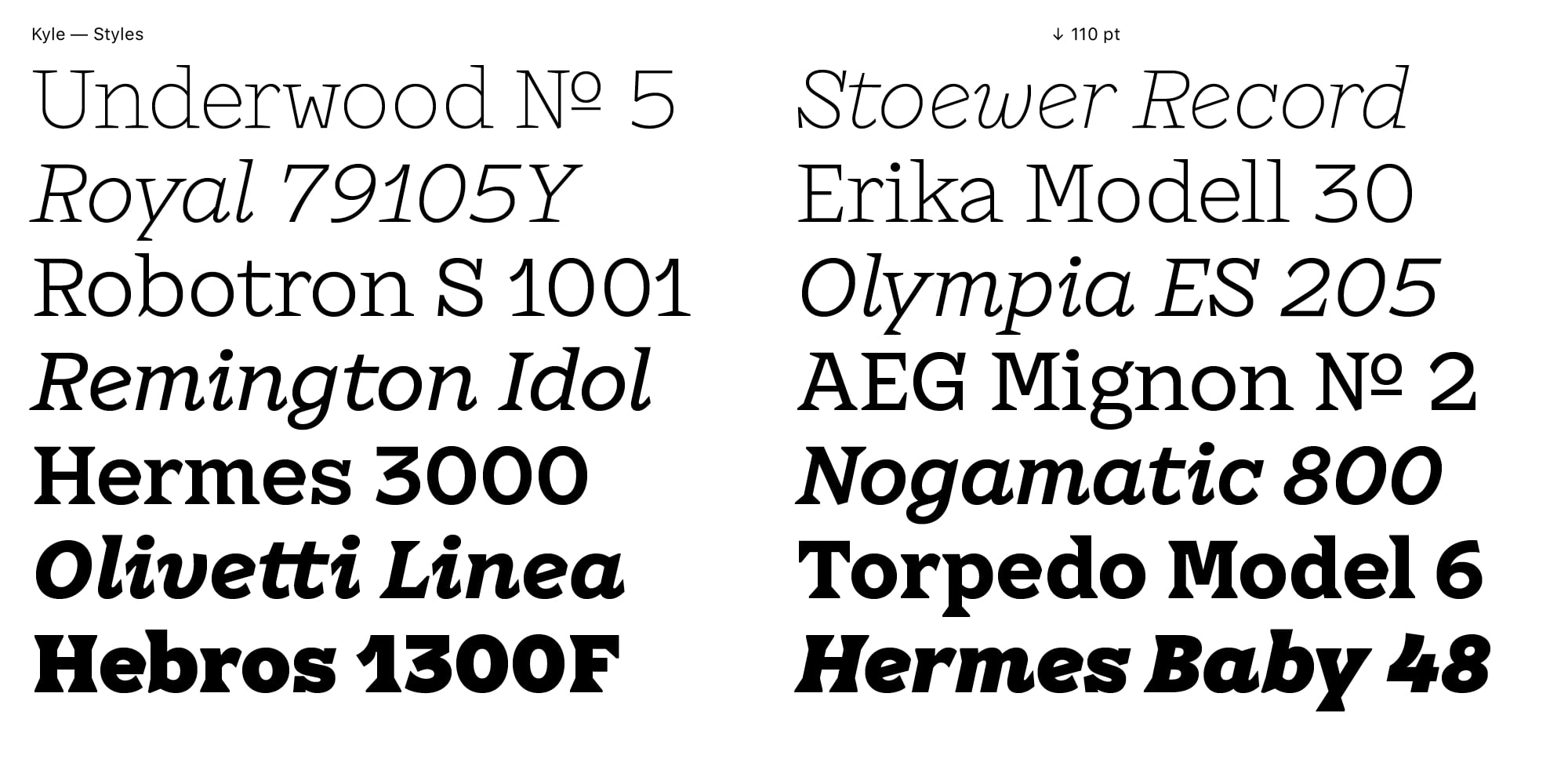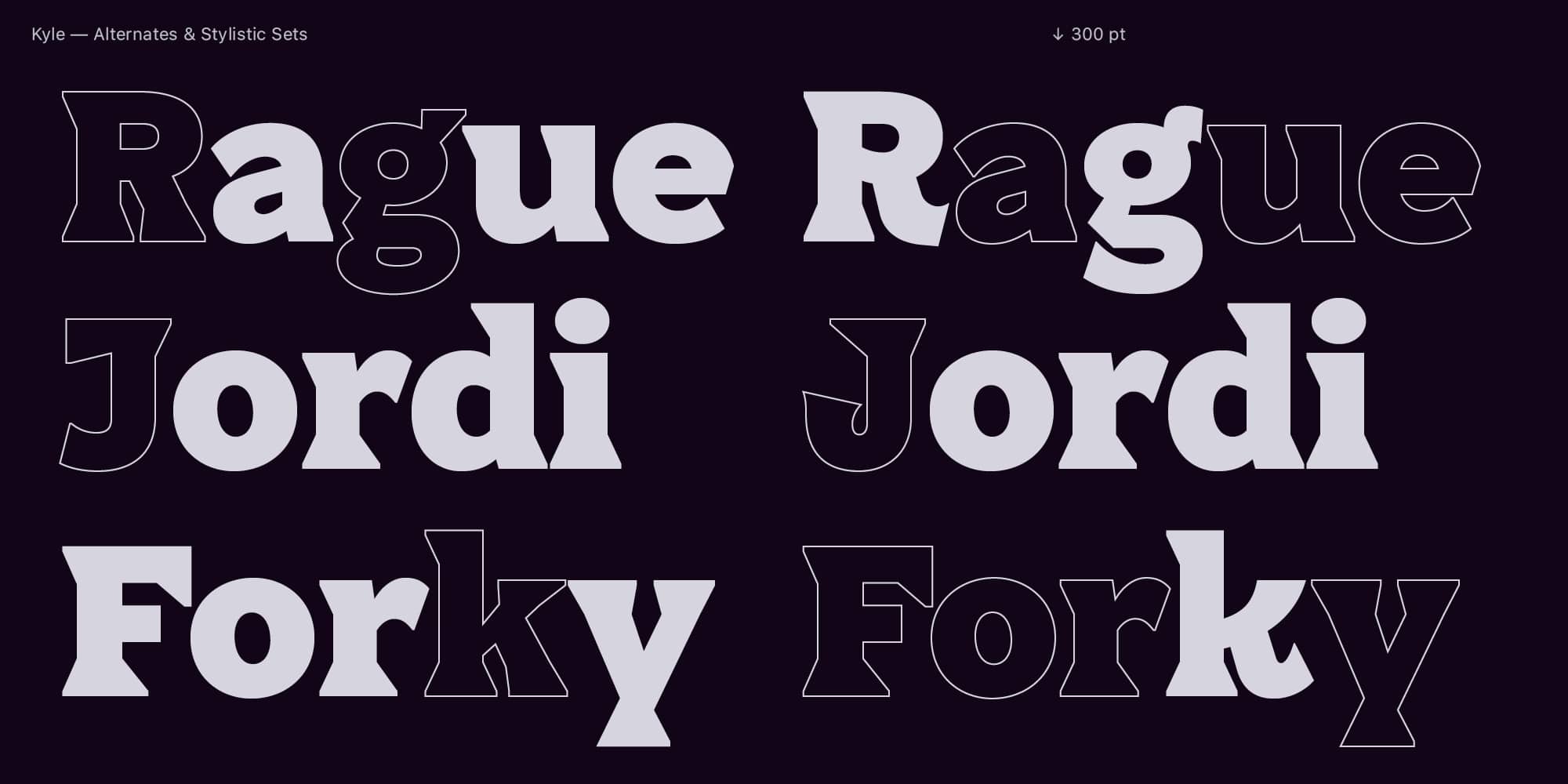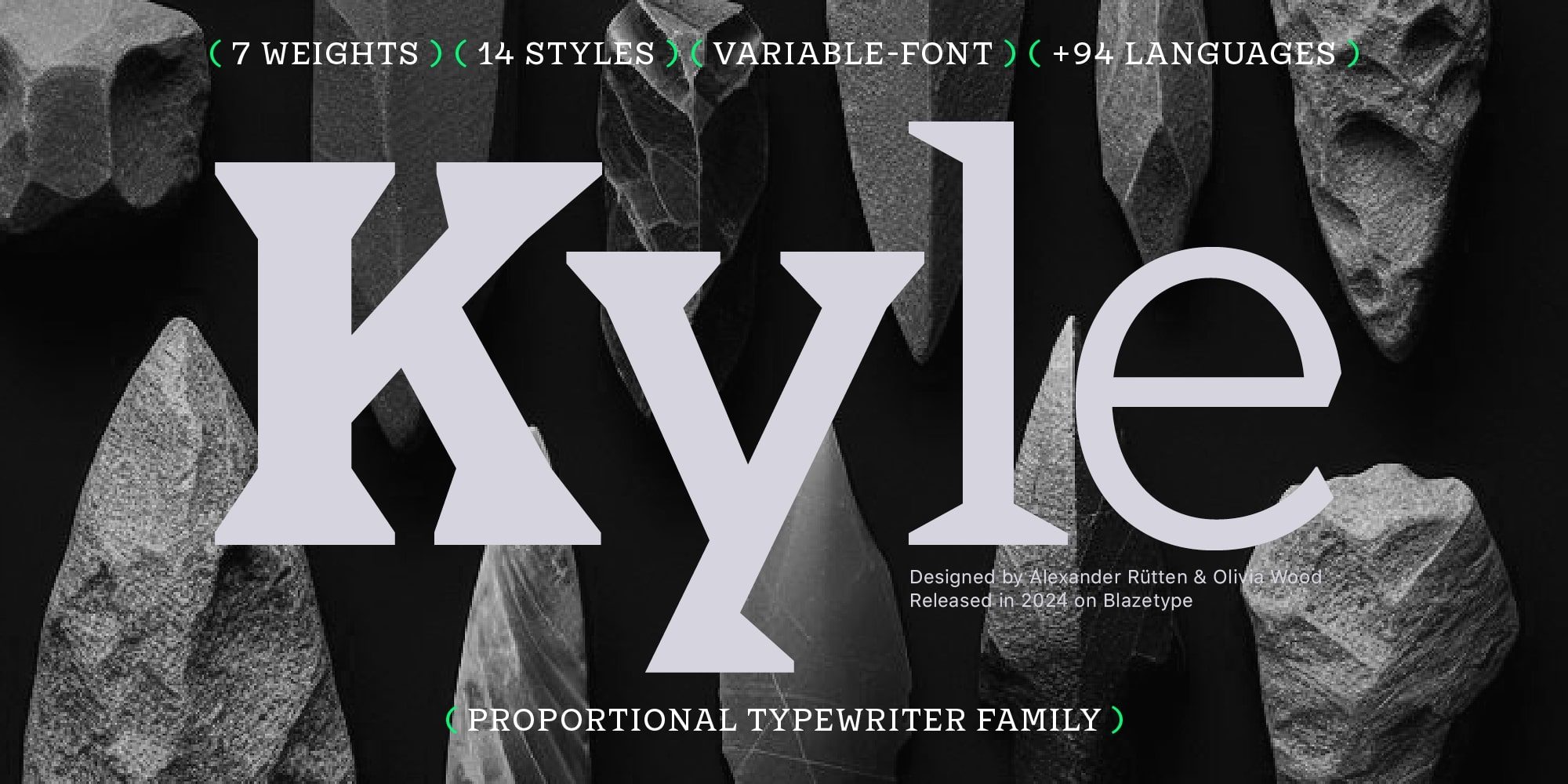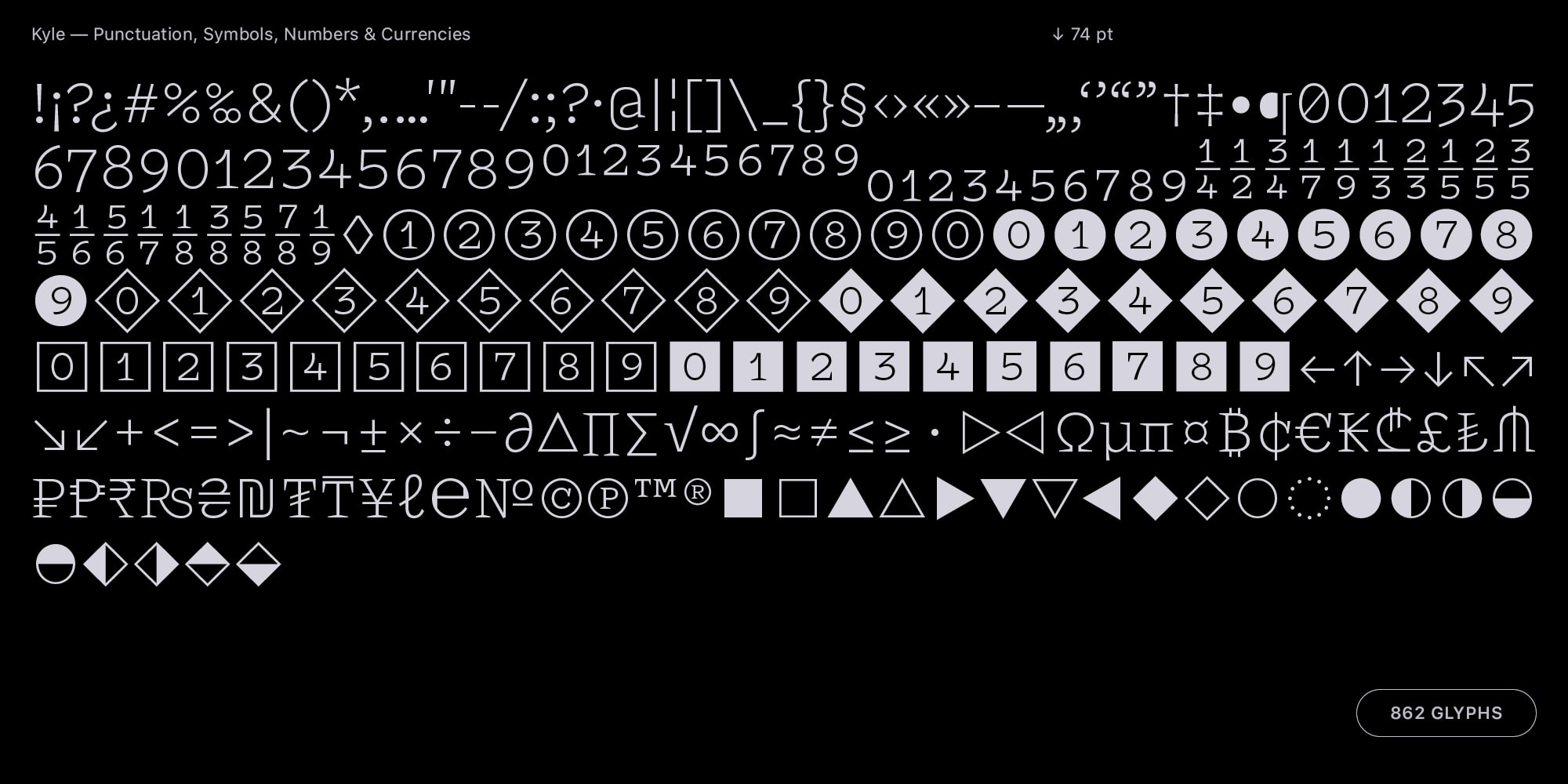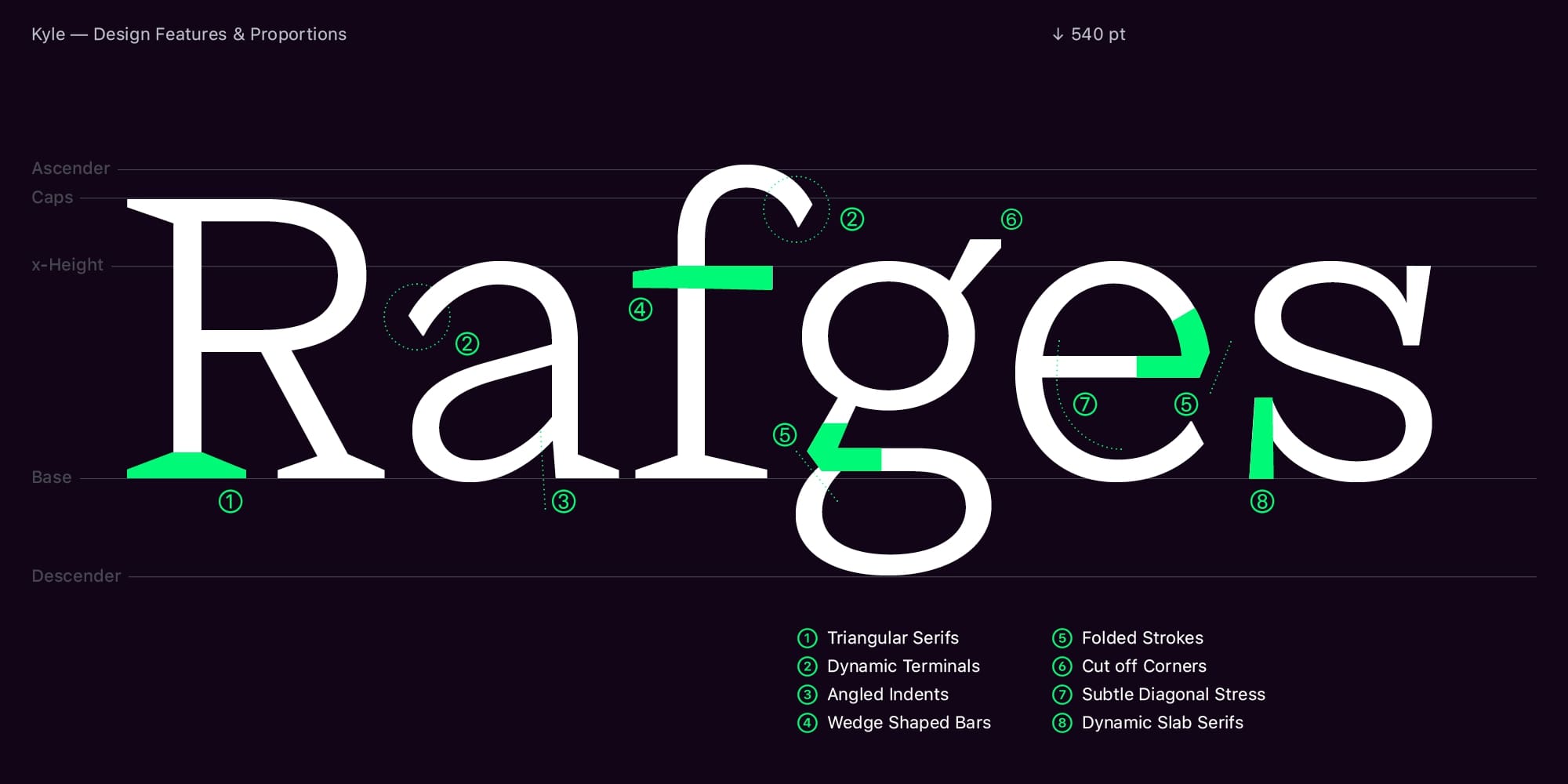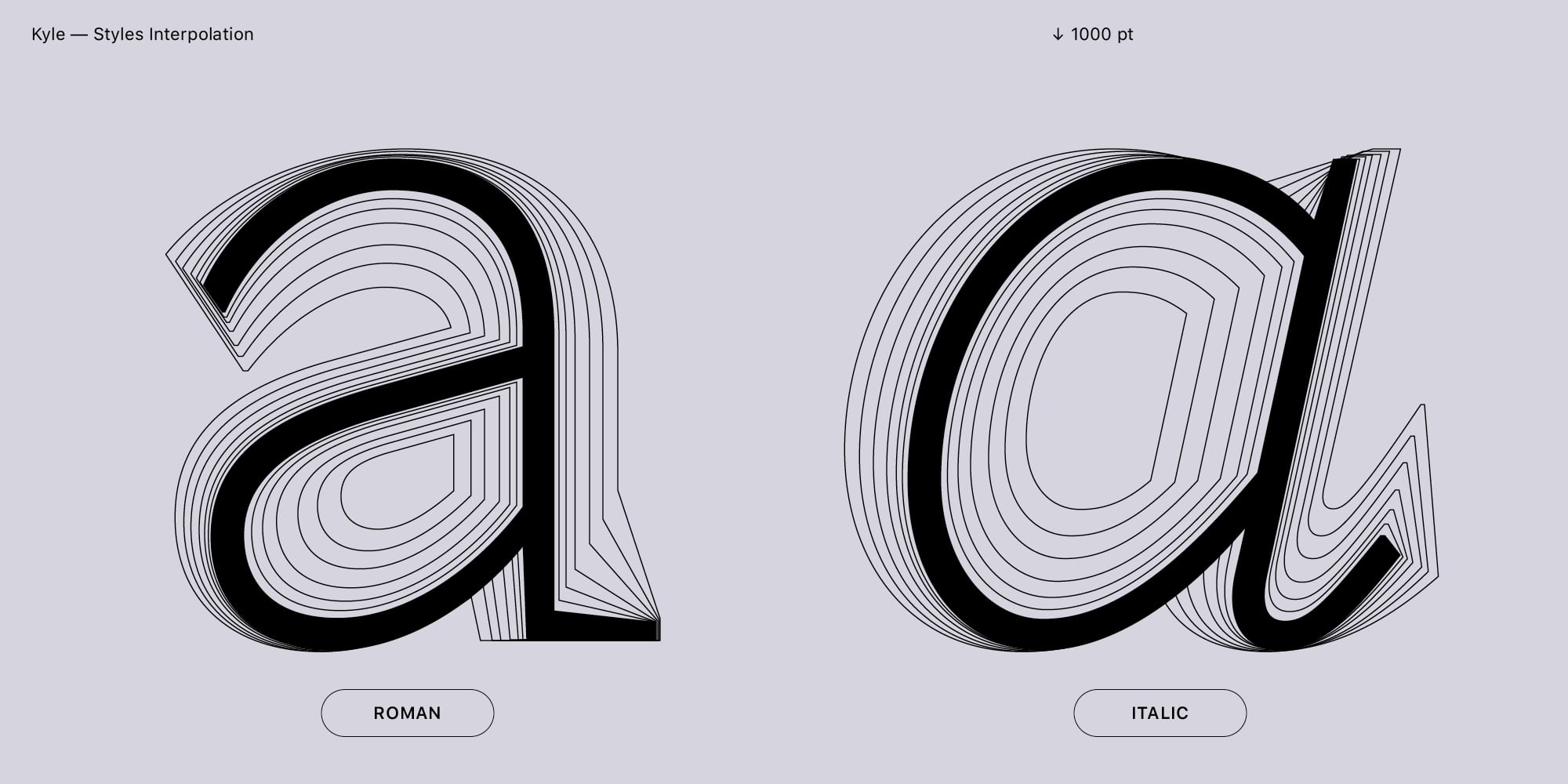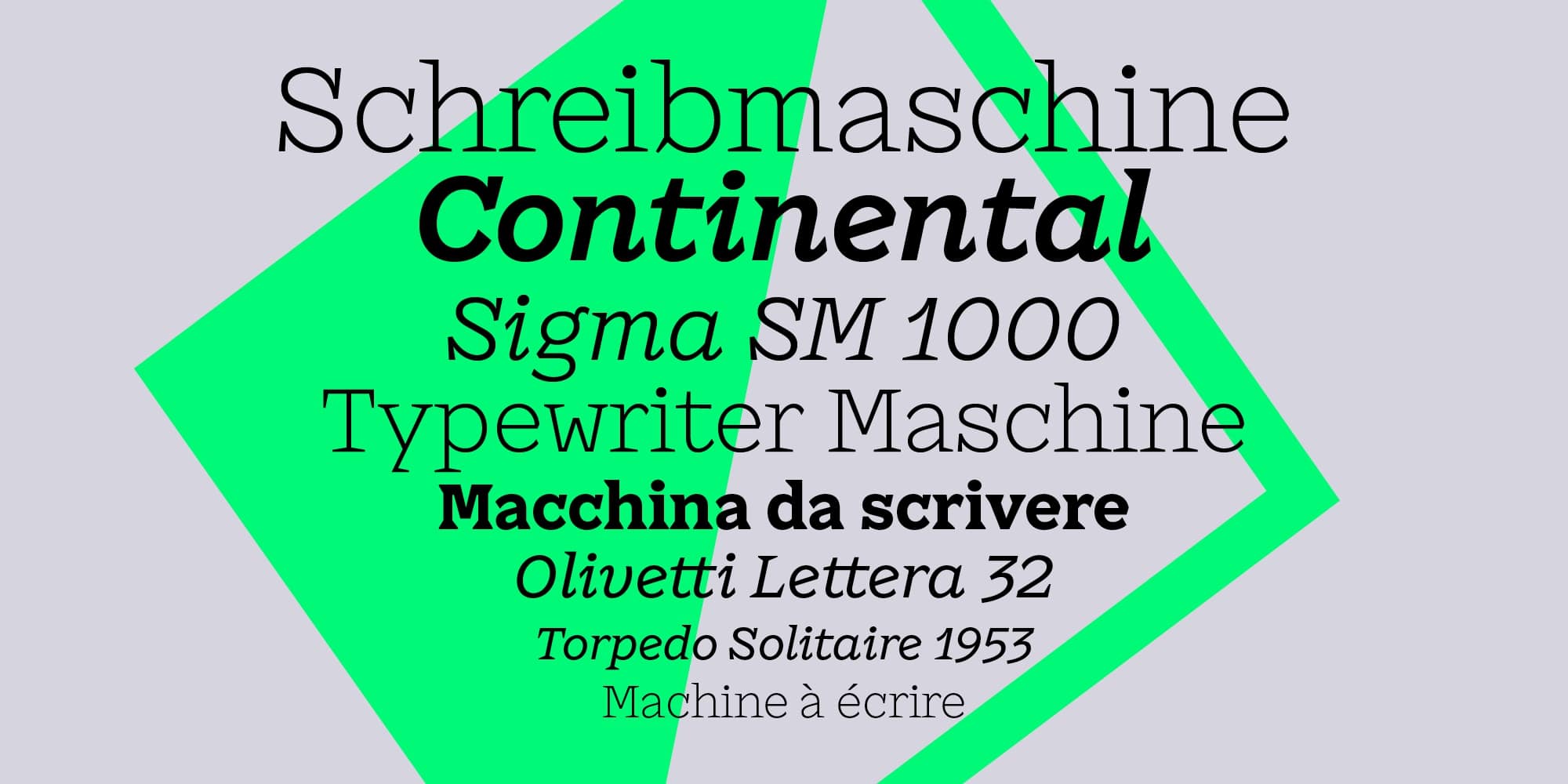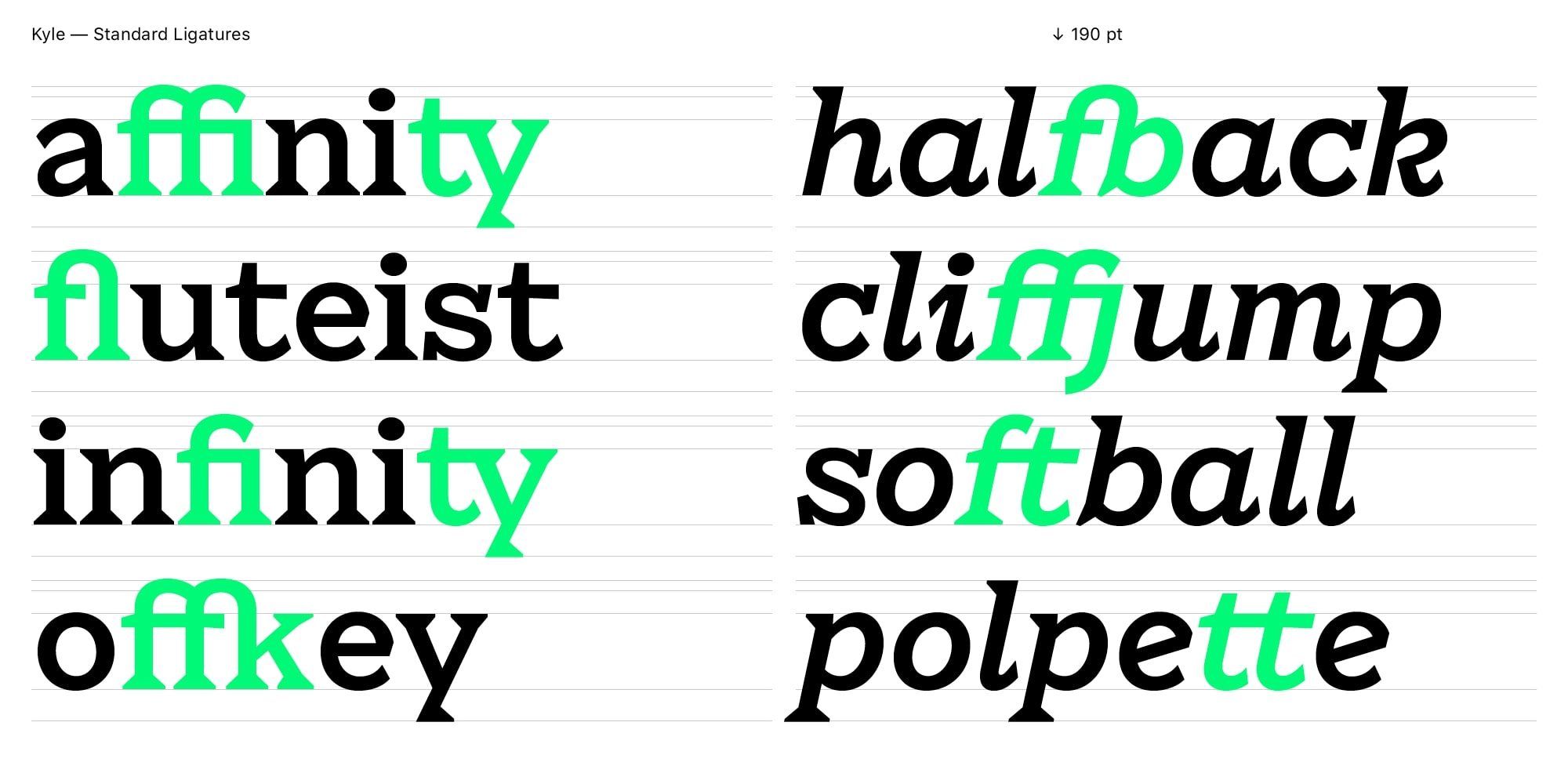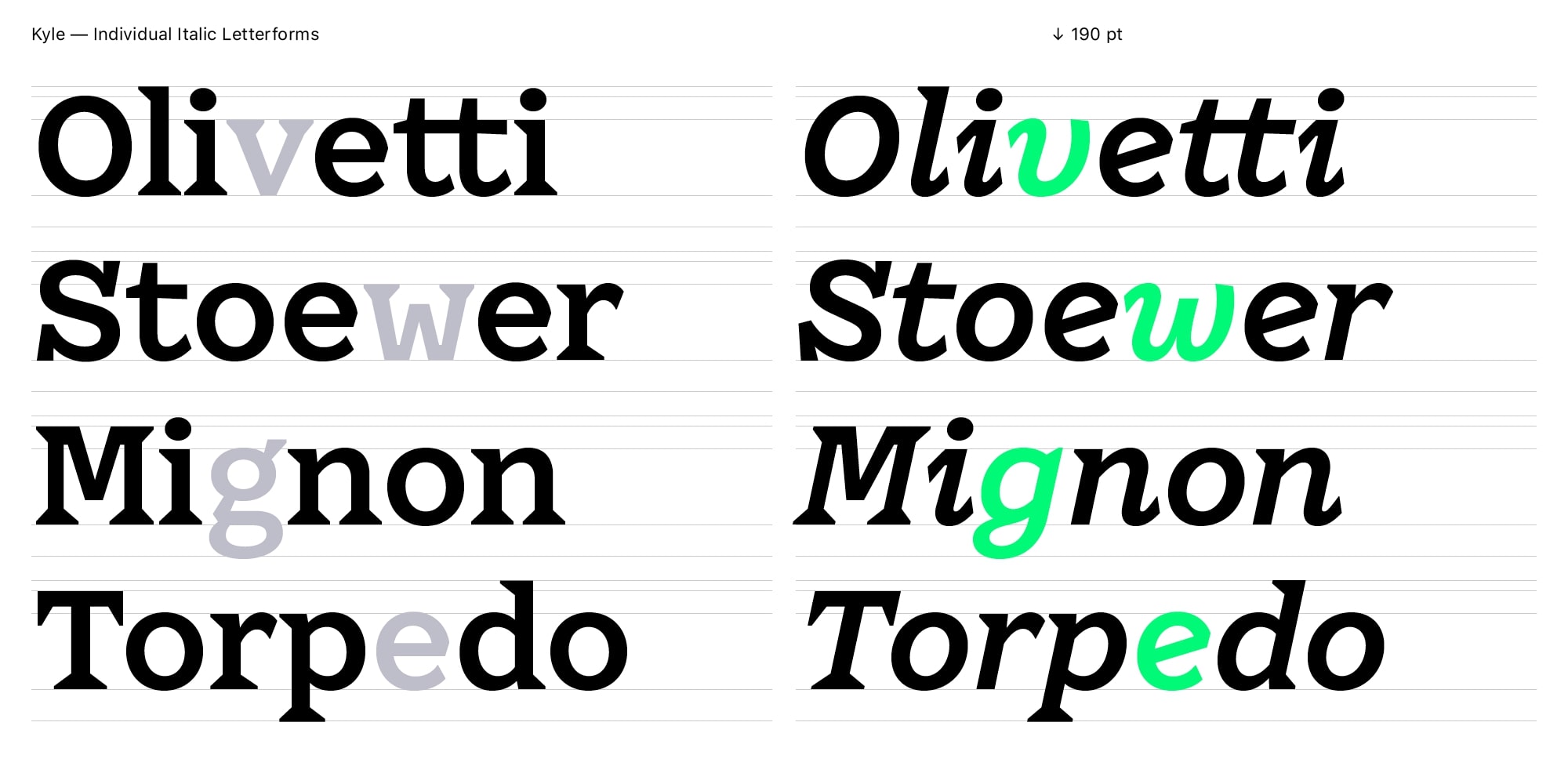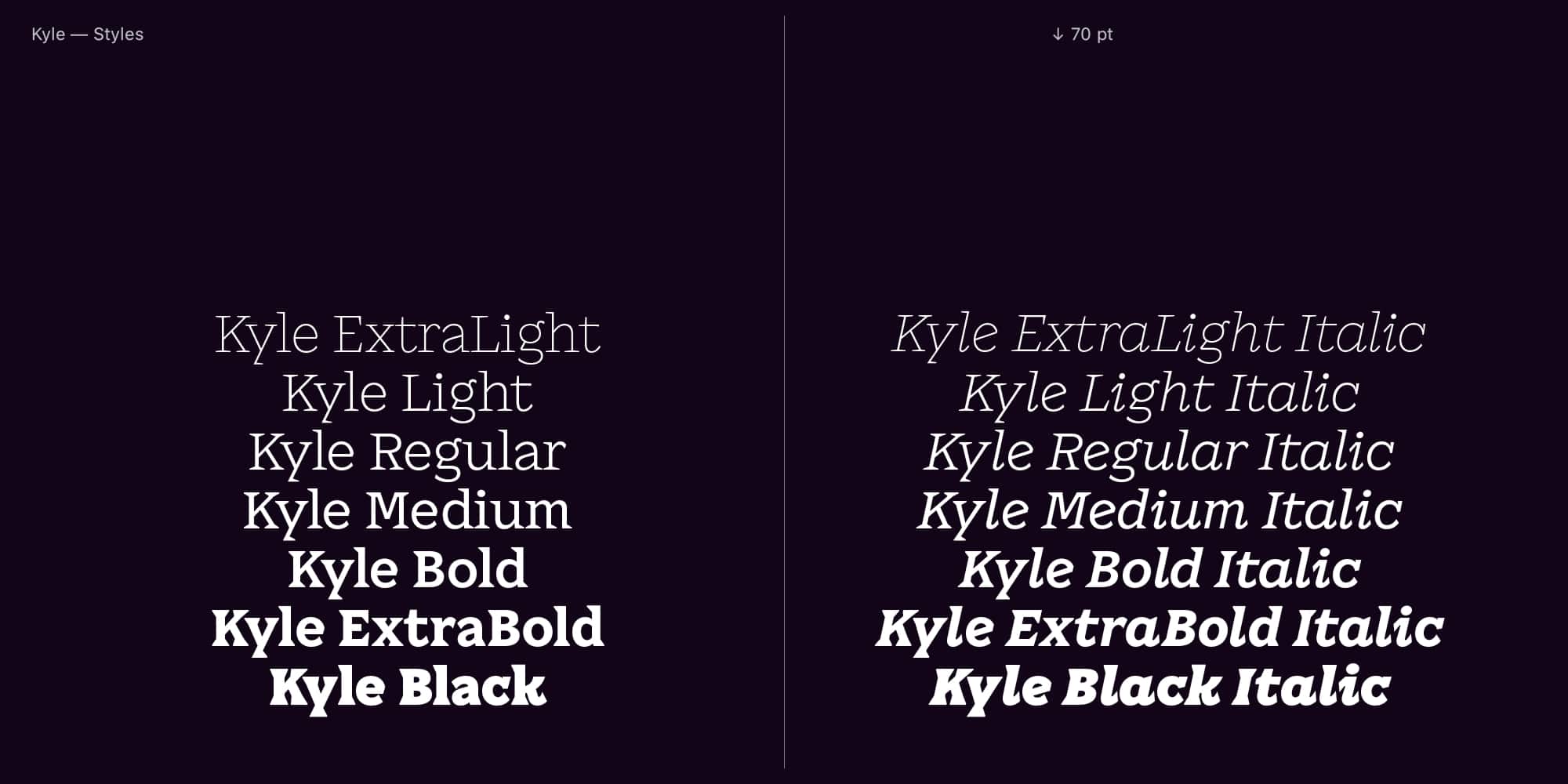
Kyle
Kyle is a contemporary monoline serif font family with a typewriter touch. It changes its character with increasing weight: The fonts have sharp, triangular serifs, that gain momentum as the weight grows. The serifs change their look from the typical slab like typewriter form to strong triangular extremities, giving the font a strong standing and a lot of character. The heavier weights gain headline quality, showing detail that attracts attention and makes Kyle a great choice for a wide range of uses. The family is well equipped for todays typographic needs, including the most commonly used OpenType features like lining figures, ordinals, superior numbers and fractions. It also has an extended character set containing more than 800 glyphs supporting Eastern European languages as well as Central and Western European languages. Additionally it contains many practical symbols. The spacing of the letters was adjusted with a lot of care, preventing language typical spacing issues. Extensive testing in all common European languages leads to comfortable reading.